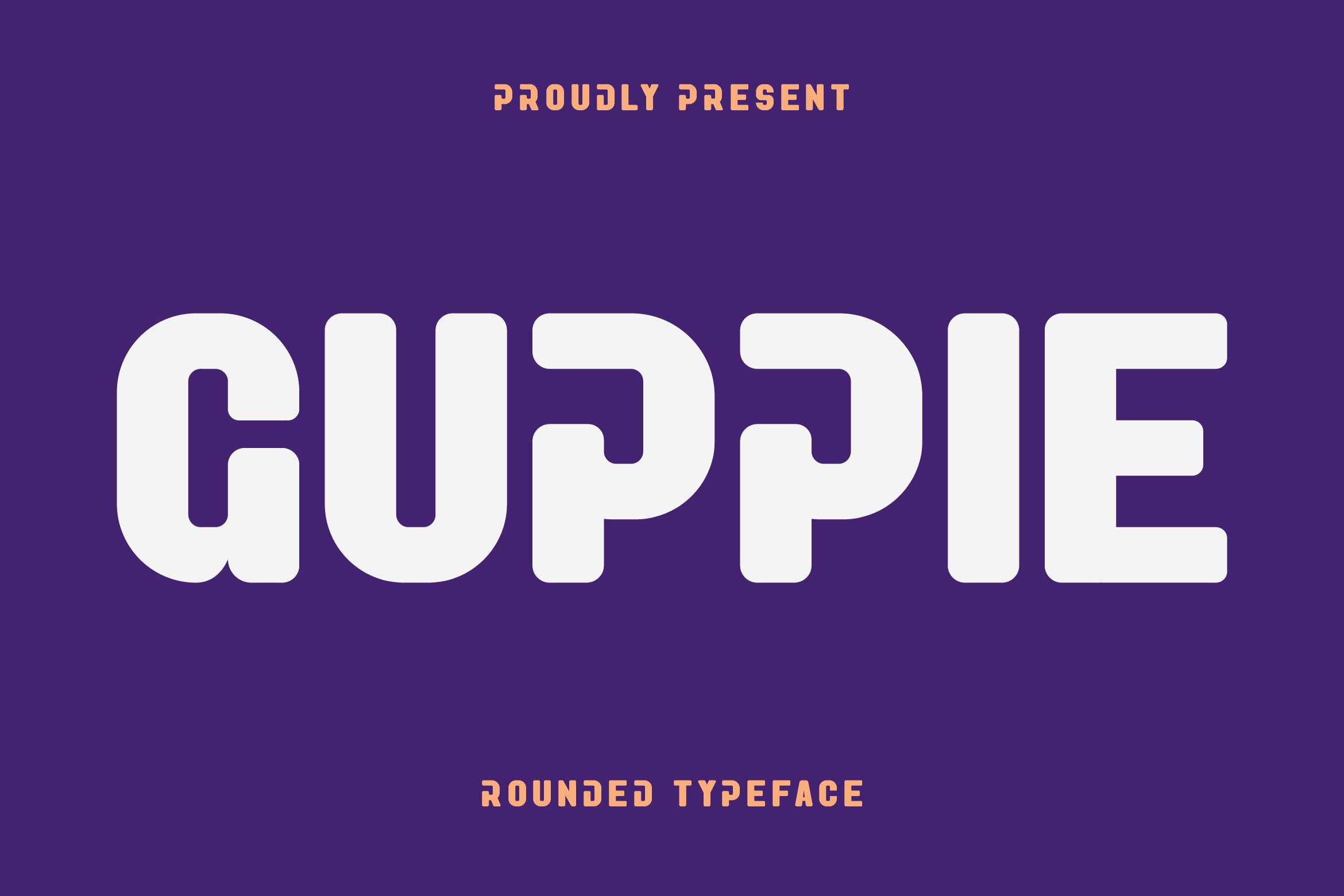
- Guppie Fun Kids Font
Guppie is a friendly and contemporary rounded sans serif font designed to bring softness, clarity, and a touch of playfulness to your typography. With its smooth curves, balanced proportions, and clean structure, Guppie is perfect for branding, packaging, editorial layouts, children’s products, UI/UX design, and social media graphics that need an approachable and modern feel.
Its rounded edges give the typeface a warm, welcoming character while maintaining excellent readability across different sizes and media. Ideal for lifestyle, tech, and creative projects, Guppie adds a soft yet professional touch to your designs.
The font includes uppercase and lowercase letters, numerals, punctuation, multilingual support, and stylistic alternates for flexible customization.
Add a sense of friendliness and modern simplicity to your work with Guppie — the rounded sans serif that blends clarity, charm, and contemporary style.